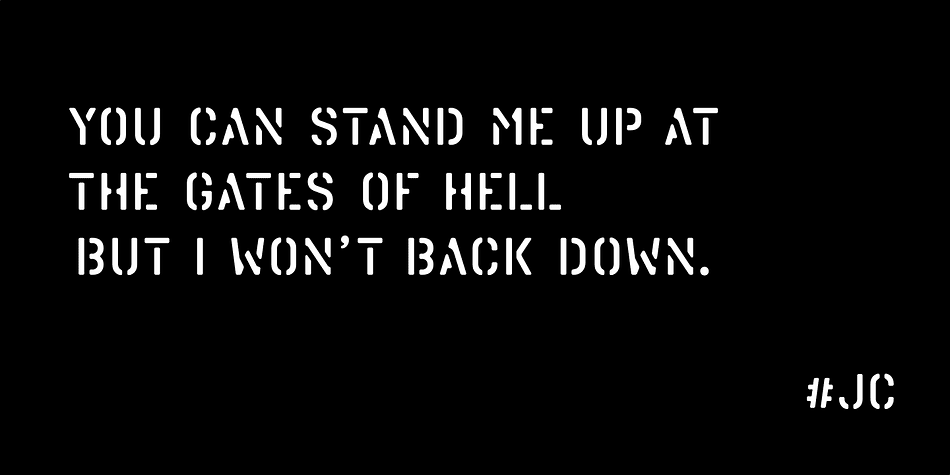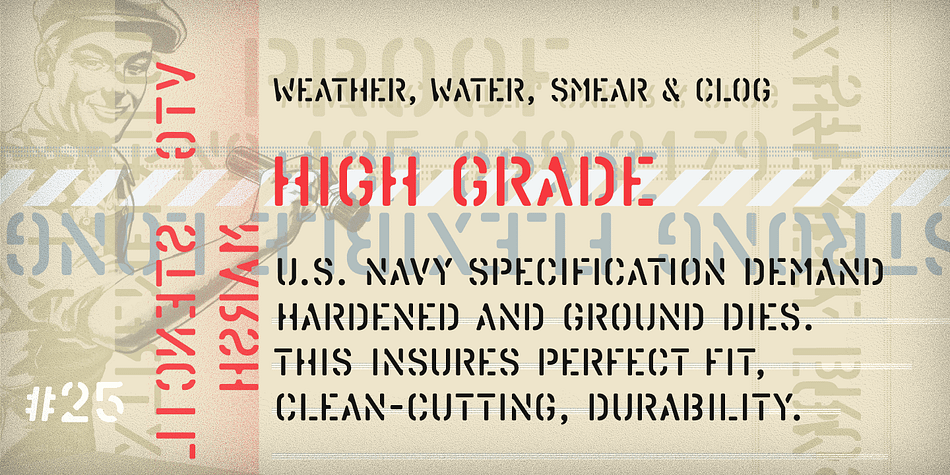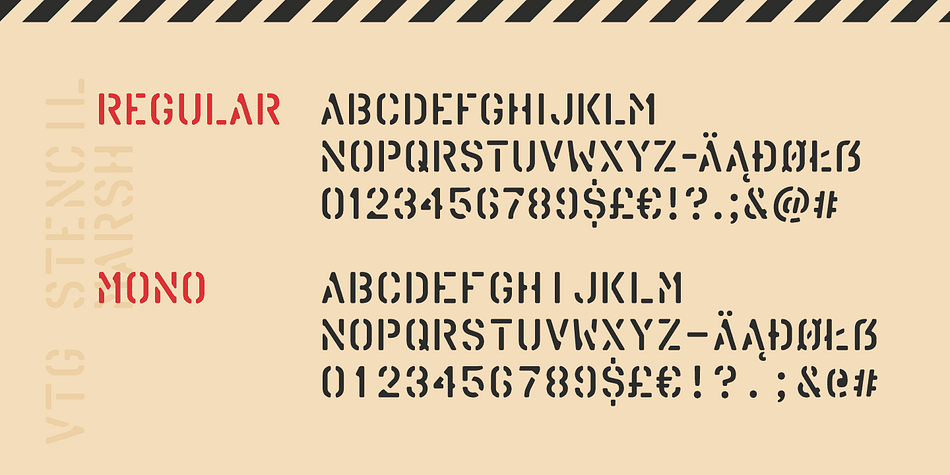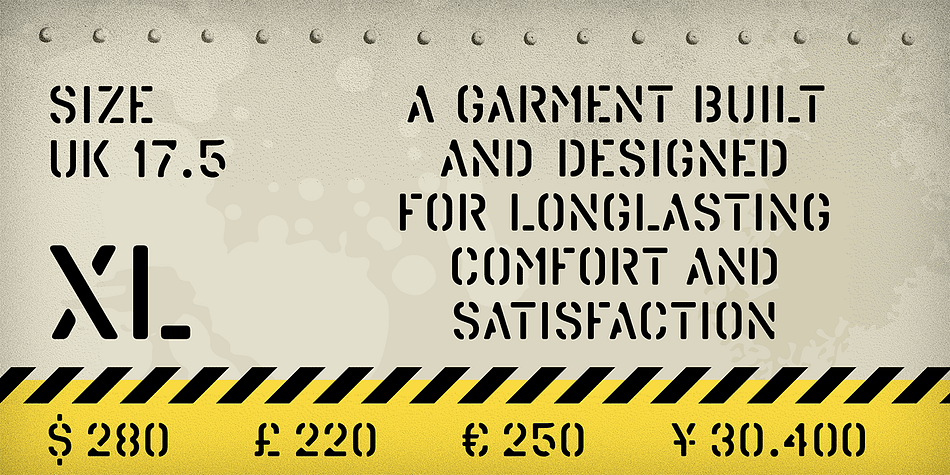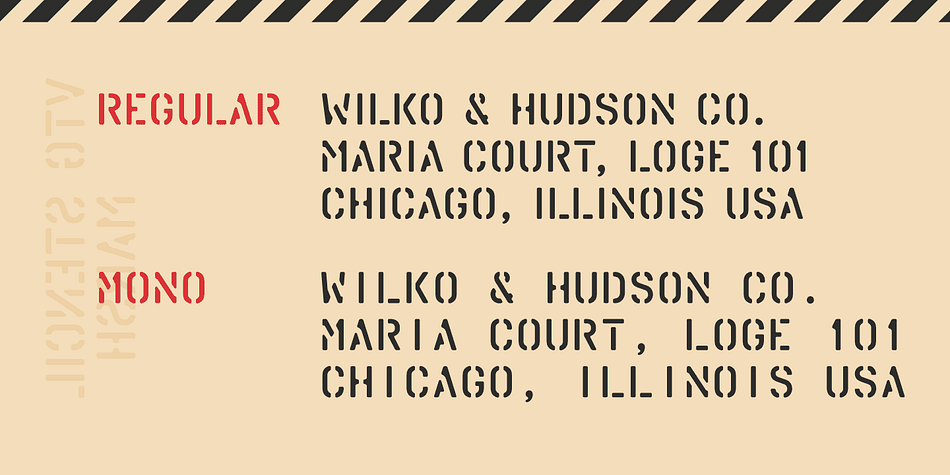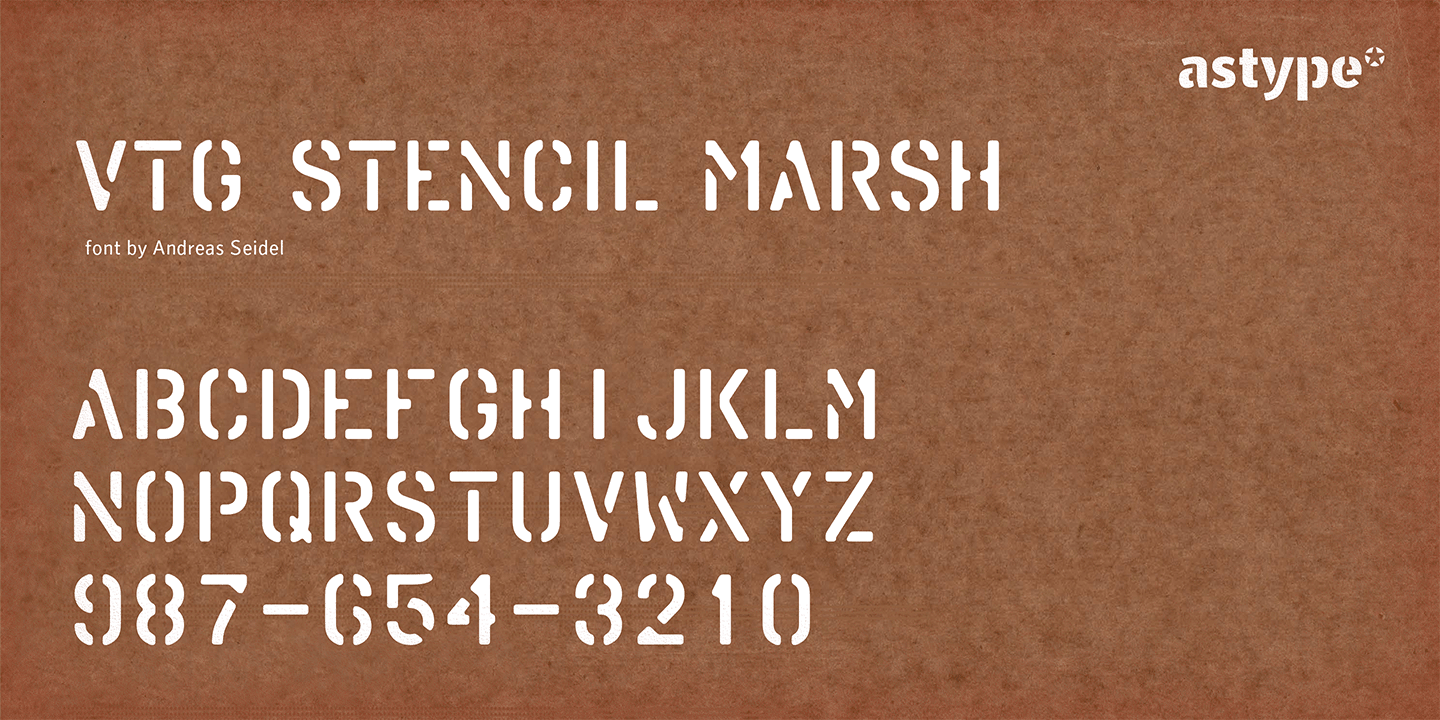
Designed by Andreas Seidel, Vtg Stencil Marsh is a stencil font family. This typeface has two styles and was published by Astype.
The Marsh design was derived from stencils, cut by a Marsh model R machine. Marsh produced stencil machines since the 1920s and was one of the most important manufacturers in the USA.